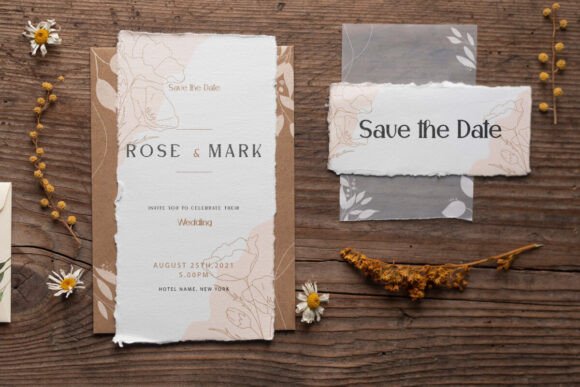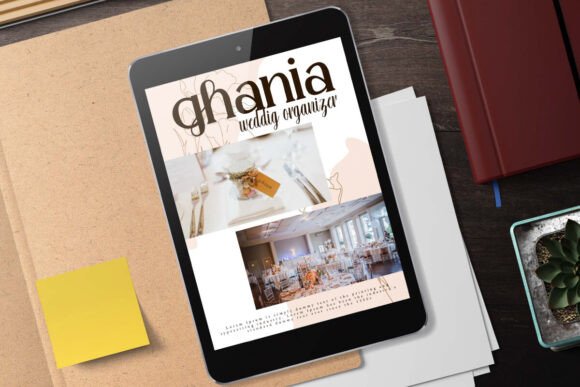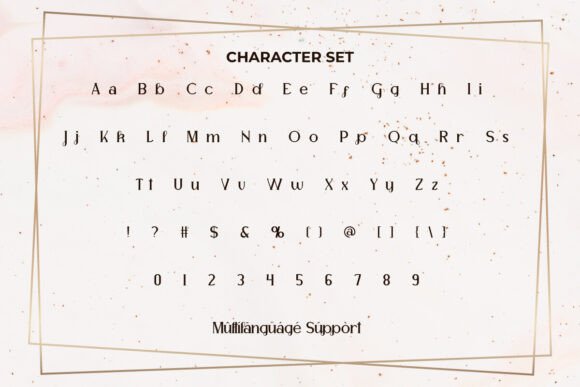
News Highlight Font: Elegant Serif for Wedding & Logo Design
About the News Highlight Font
The News Highlight Font offers a perfect balance of form and function for your design needs. News Highlight Font is an artistically stunning well decorated serif display font by NoahType. This font has a unique shape and is suitable for design concepts that have themes of beauty, nature and luxury. It will be good for any designs, such as brand image, custom design, invitation, label, magazine, poster, product packaging, quote, signage, stationery, website page, and more!
News Highlight Font’s ornate detailing makes it ideal for headlines, logos, and short, impactful text within branding materials, posters, and high-end packaging. Its decorative nature, however, renders it less suitable for body copy or UI elements where legibility over extended lengths is crucial. Avoid using it for lengthy paragraphs or small sizes.
The font projects a sophisticated, luxurious personality. To complement this, pair it with a clean sans-serif like Montserrat for body text or a minimalist geometric sans-serif like Futura for a modern contrast. For a more traditional feel, consider pairing it with a classic serif like Garamond.
A script font like Playfair Display could add a touch of elegance for invitations or stationery, while a bolder, more condensed sans-serif could create a striking juxtaposition for impactful headlines.
News Highlight Font Usage Examples
News Highlight Font Example